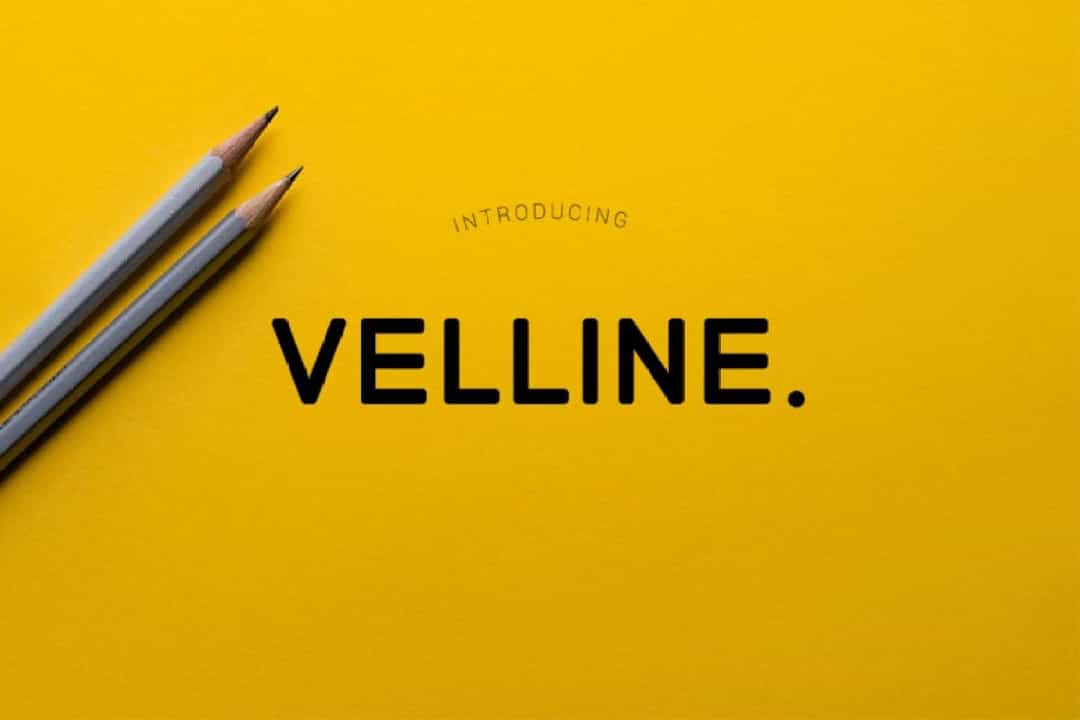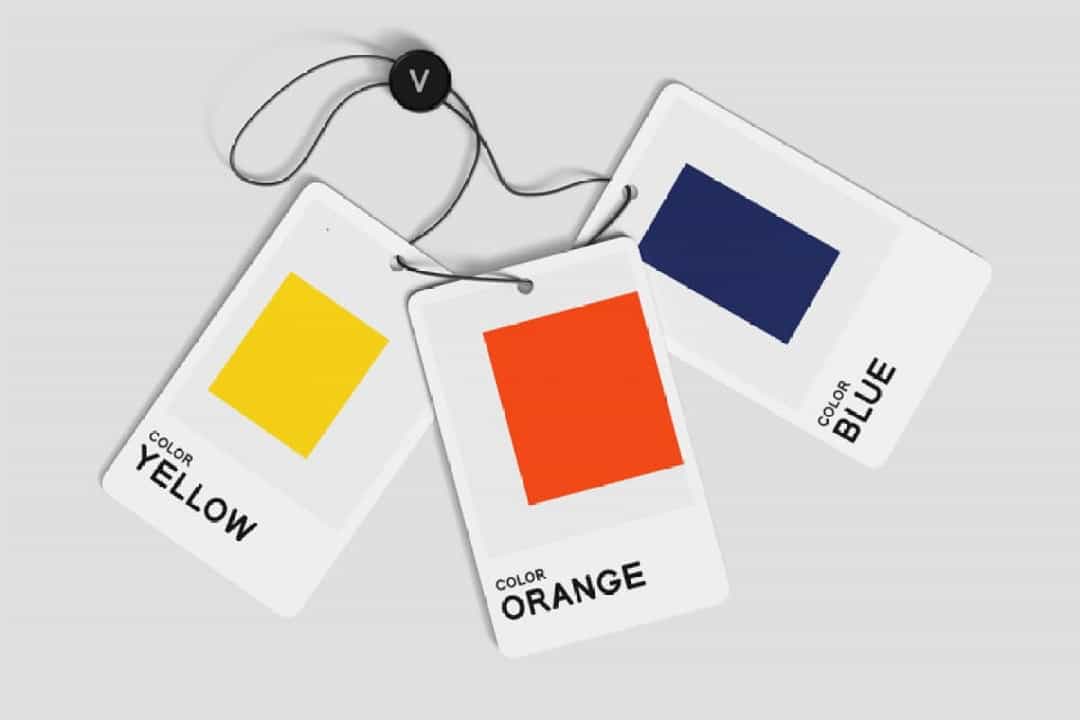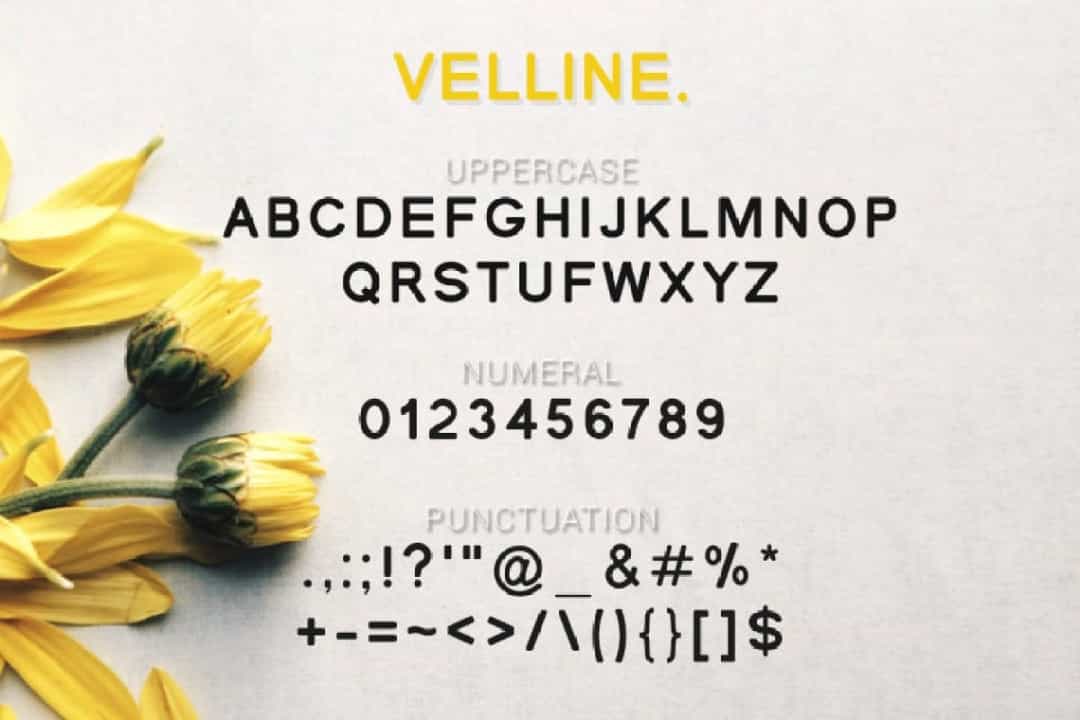
Vellineis an elegant sans serif font with clean lines that is versatile enough to be used across numerous projects and creative ideas, from branding logo design, clothing branding packaging product packaging magazine headers and magazine headers as well as text overlay on backgrounds images.